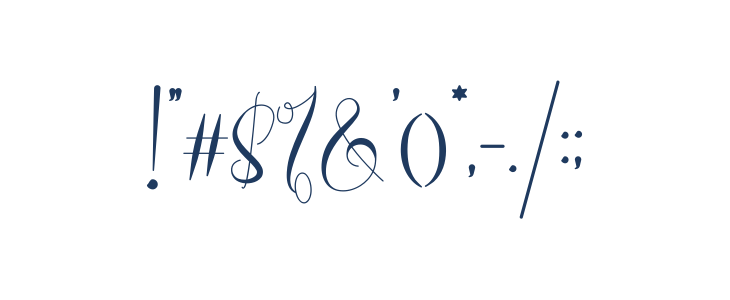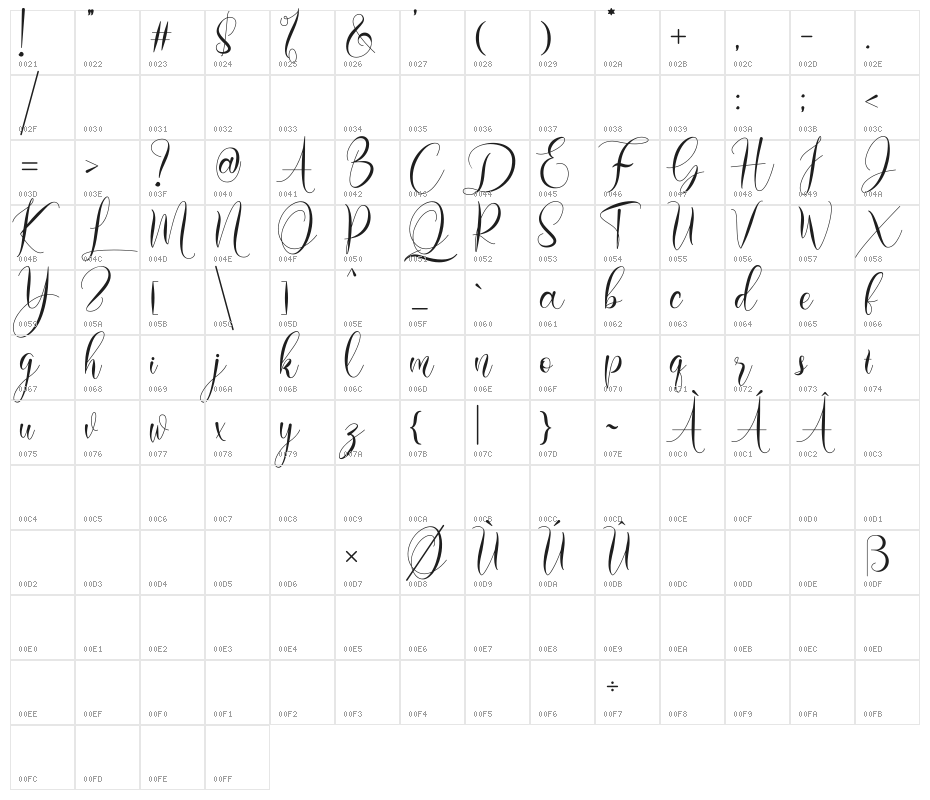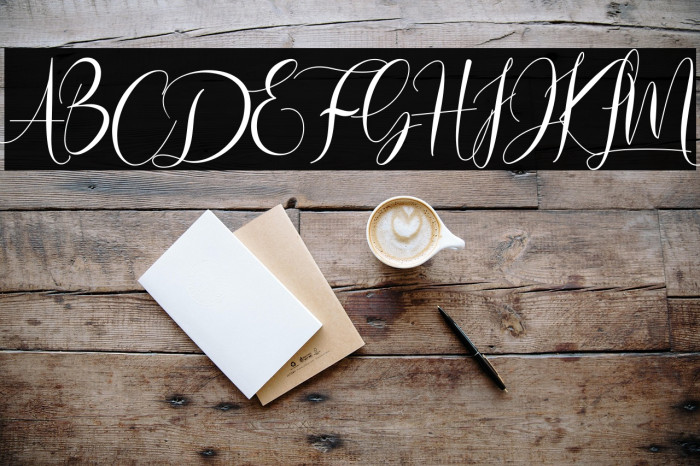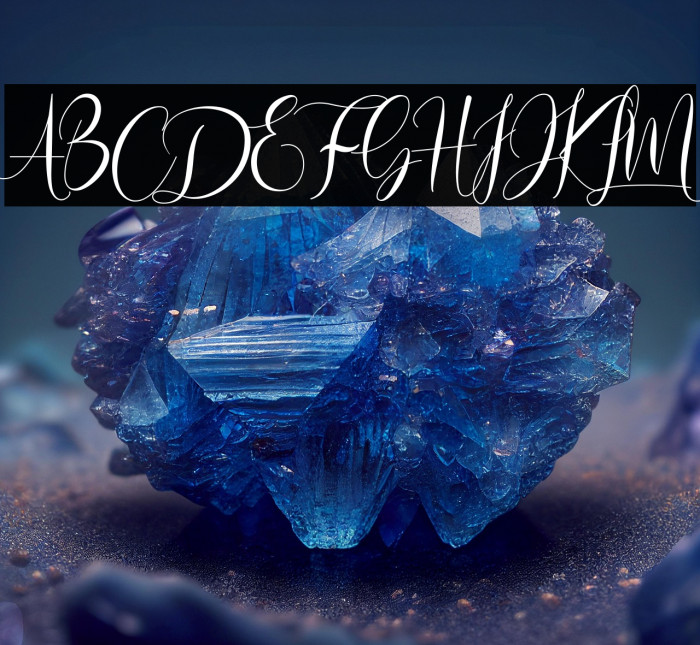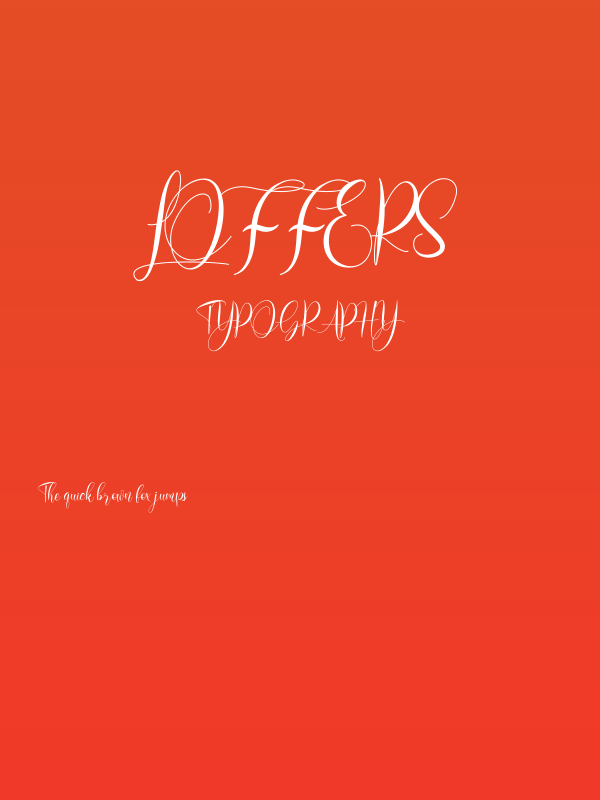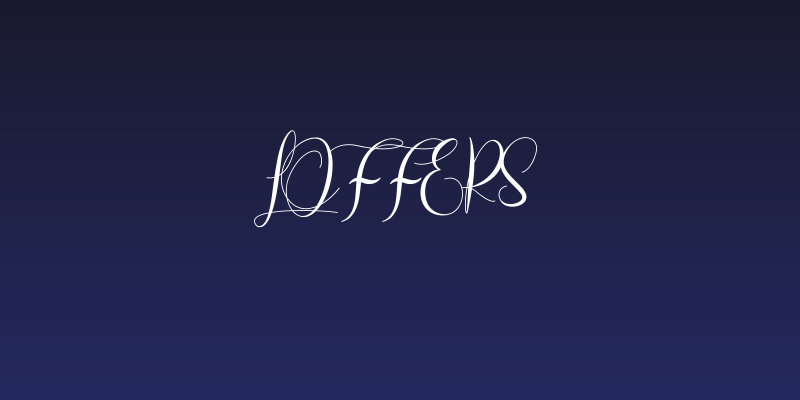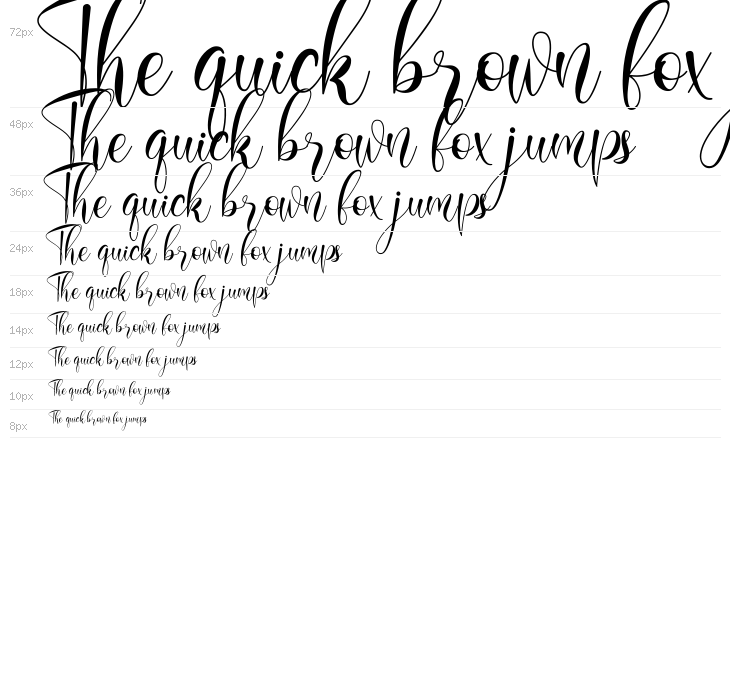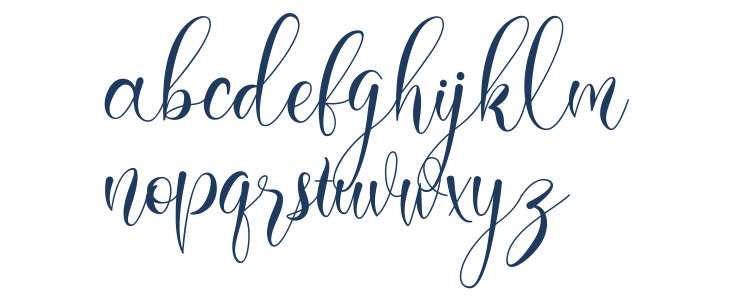
Loffers Font
Loffers Description
This font features an elegant and flowing script style, characterized by its intricate loops and flourishes. The uppercase letters are tall and slender, with graceful curves that give a sense of movement and fluidity. The lowercase letters maintain a consistent style, with some characters extending below the baseline, adding to the font's dynamic appearance. The numerals and special characters complement the overall aesthetic, maintaining the same decorative and sophisticated look. This font is ideal for projects that require a touch of elegance and sophistication.
| Use Case | Logos, Invitations, Decorative headings |
| Proposed Projects | Wedding invitations, luxury branding, elegant packaging, and decorative headings. |